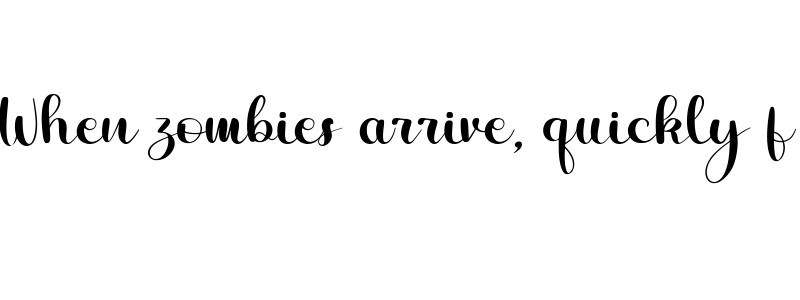
Jambul
Proudly Present, Grimstica
Grimstica Is a Stylish Script Font
Grimstica is perfect for product packaging, branding project, megazine, social media, wedding, or just used to express words above the background.
• grimstica is perfect for product packaging, branding project, megazine, social media, wedding, or just used to express words above the background.